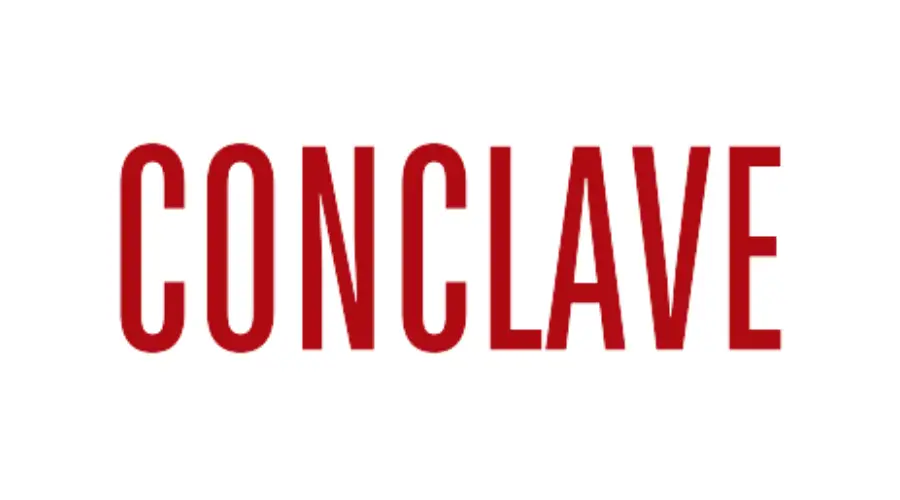
The Conclave font is TT Bluescreens Medium, a modern geometric sans-serif that anchors the 2024 thriller film Conclave‘s visual identity. Designed by TypeType Foundry, its clean, condensed letterforms evoke the film’s themes of secrecy and power within the Vatican, making it both memorable and perfectly suited for cinematic branding.
Conclave Logo Font
About TT Bluescreens
- Style: Neo-grotesque with narrow/condensed proportions, creating a clean, bold, and structured look
- Designer: TypeType Foundry (Ivan Gladkikh, Yulia Gonina, and team)
- Character: The font’s neutral yet memorable character aligns with the film’s themes of secrecy, power, and intrigue within the Vatican
Similar Fonts to TT Bluescreens
If youβre looking for fonts similar to the Conclave Font (TT Bluescreens), here are some great alternatives:
TT Bluescreens by TypeType β The original font used in the Conclave movie logo.
Parkson Semi Bold by Rook Supply β A similar font with a modern and clean design.
Best Font Pairings for Conclave Font
For TT Bluescreens Medium (the Conclave movie font), the best pairing would be Crimson Text or Playfair Display.
1. Crimson Text – Perfect for body text
- A scholarly, readable serif that contrasts beautifully with TT Bluescreens’ condensed, geometric sans-serif
- Shares similar proportions and x-height for visual harmony
- Evokes the classical, institutional tone fitting for Vatican-themed content
2. Playfair Display – Elegant for headlines/accents
- High-contrast serif with dramatic flair, excellent for quotes or chapter titles
- Adds sophistication without competing with TT Bluescreens’ clean authority
In conclusion
TT Bluescreens Medium stands as the definitive Conclave font, seamlessly merging modern geometry with cinematic gravitas. Its clean, authoritative letterforms capture the film’s Vatican intrigue, while its versatility extends far beyond movie posters, making it an exceptional choice for designers seeking a typeface that commands attention without sacrificing sophistication. For authentic branding or personal projects alike, this TypeType creation delivers both clarity and dramatic impact.